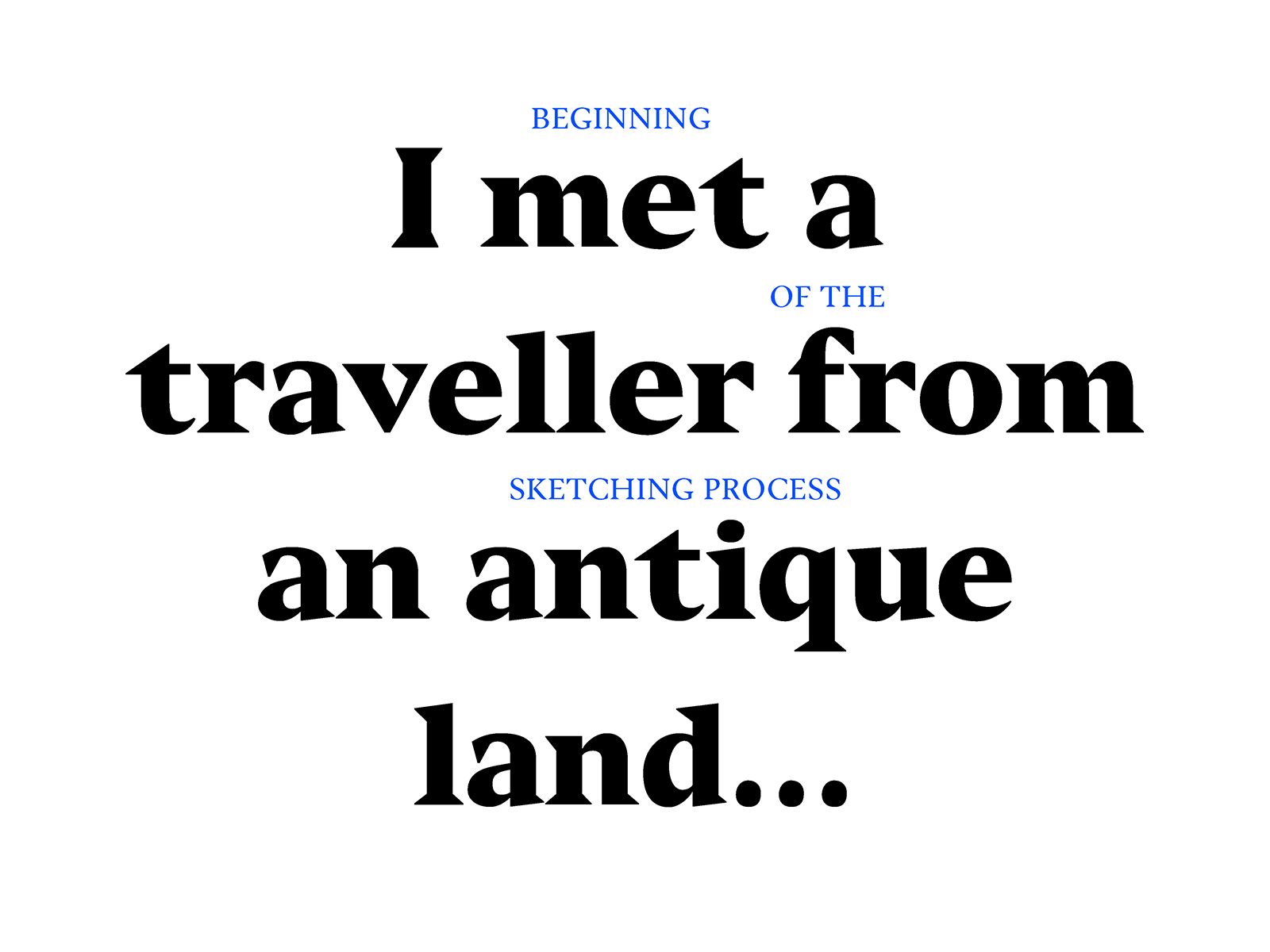
Emery
Emery is inspired by an eye-opening experience I encountered while visiting Paris. Where I am from, in Singapore, burial grounds are dreary places rarely visited. In contrast, Parisian cemeteries are strikingly beautiful park-like places frequently enjoyed by visitors. Intrigued by this discovery, I decided to develop Emery as a way to capture and celebrate the ornate and classical elements of these sacred spaces.
The name, Emery pays homage to the stone mason’s tools. Emery shares its name with the dark granular rock from which the abrasive powder, used to create tools capable of carving into stone, is made. Hence through out the process of creating the typeface, constant reference to stone carvings were made; such as starting with a flat brush instead of a calligraphic pen, as suggested by Edward M. Catich that brush is the underlining layer used before the carvings were made.
In addition, inspired by the sharp chiseled type adorning tombstones, the capitals are based on the classic proportions of Trajan. Despite the many hard angles, the counters maintain a roundness that creates a contrasting softness in the typeface. Some letters – like ‘R’ and ‘K’ also have slightly curved terminals that further blend these hard and soft characteristics. The distinctive design of the letter “Q” and ‘y” introduce an expressive edge, while special attention was placed on the numbers and ligatures to provide both old style and lining text figures.
Emery currently consists of two weights roman and black. The intention is to expand the family to include an italic while also exploring the idea of erosion through a stencil character set. Symmetrical serifs and a medium weight provide an even texture to text. The letterforms are designed as a display typeface for posters or headlines, and performs best when set at 16 points and above. An optional set of alternates is available when a more modern tone is desired.